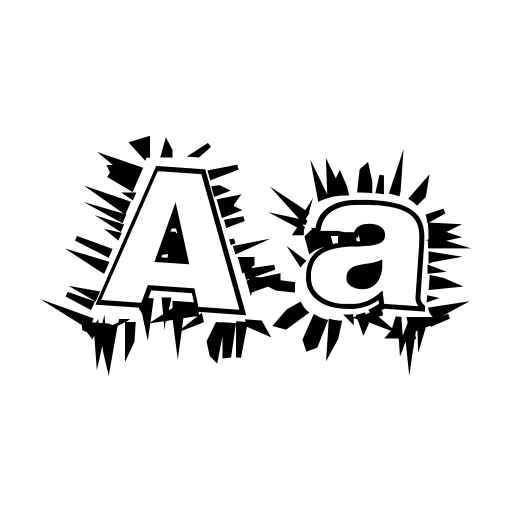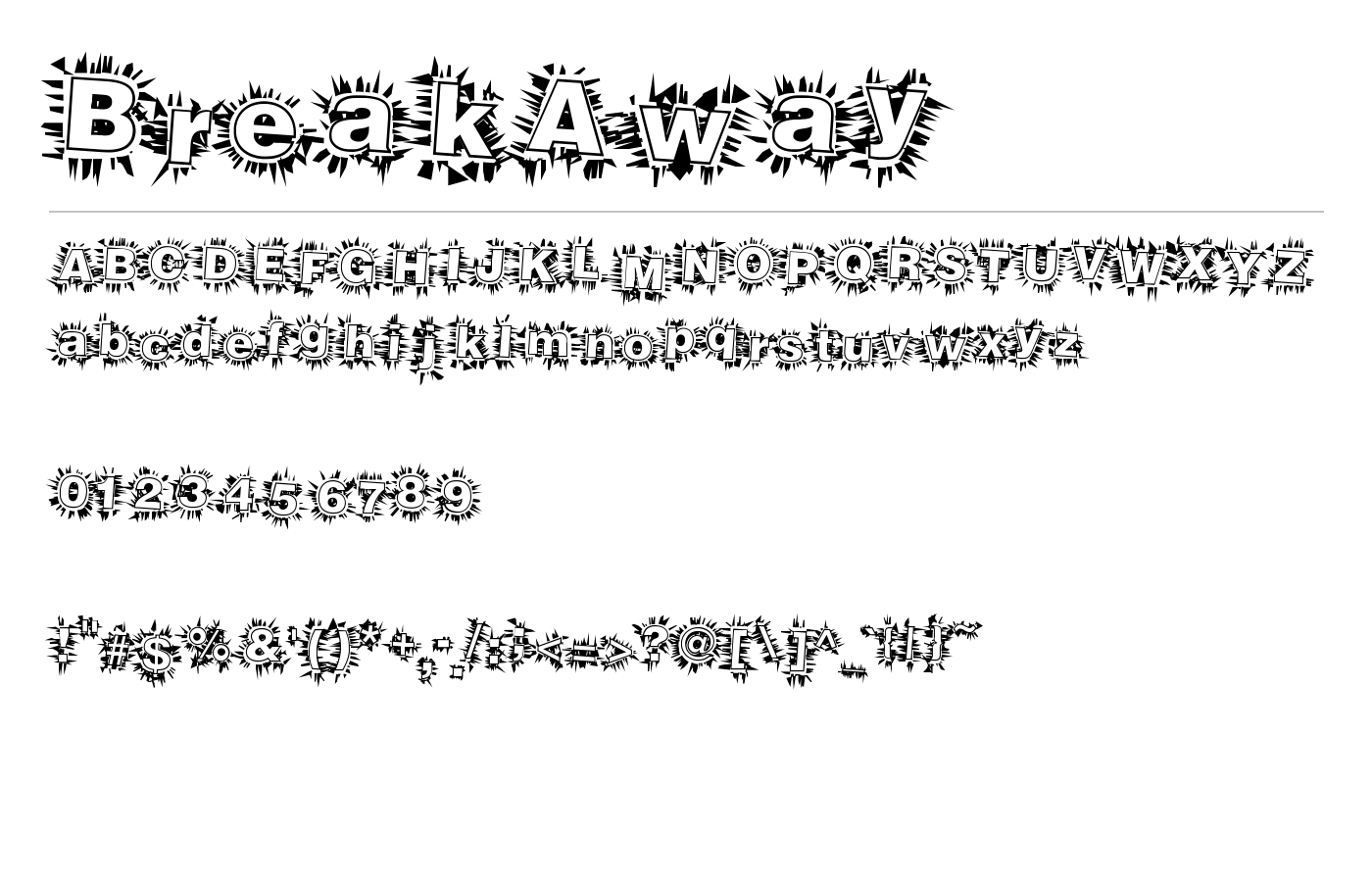
BreakAway is a bold, playful display font with thick, blocky letters surrounded by dynamic, jagged bursts that give it an energetic, rebellious feel. Its all-caps and lowercase characters feature solid sans serif forms with uniform stroke weight, making it eye-catching for fun, informal designs like posters, logos, or packaging that need a lively, standout style. This font works best in large sizes where its quirky, explosive texture can really shine and capture attention.
BreakAway Font
About BreakAway Font